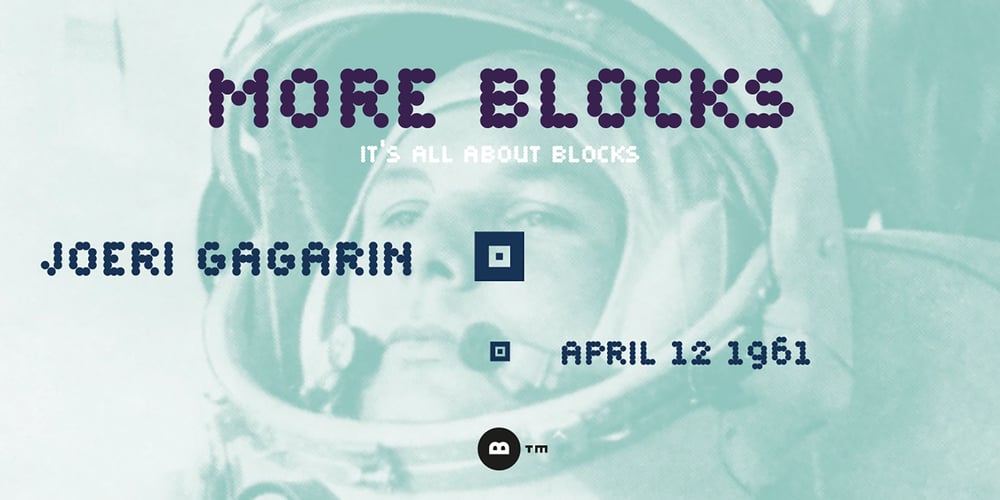
More Blocks
More Blocks font
More Blocks Font Family was designed by Hermen Grasman and published by Beware of the moose. More Blocks contains 1 styles and family package options. It is not really a font, the are more icons. Based on a grid op seven squares al 127 possibilities – filled and unfilled. Use it decorative or just for fun. There is also a dotted version.